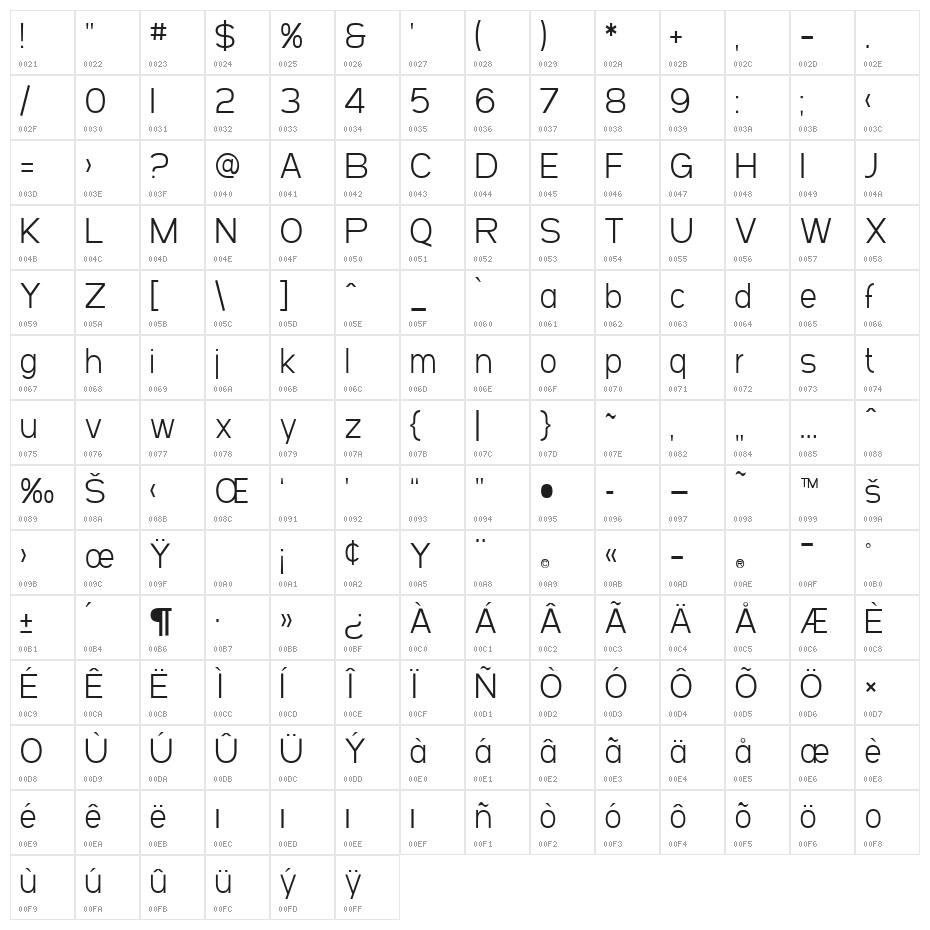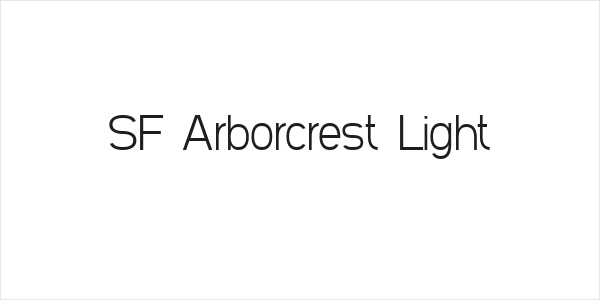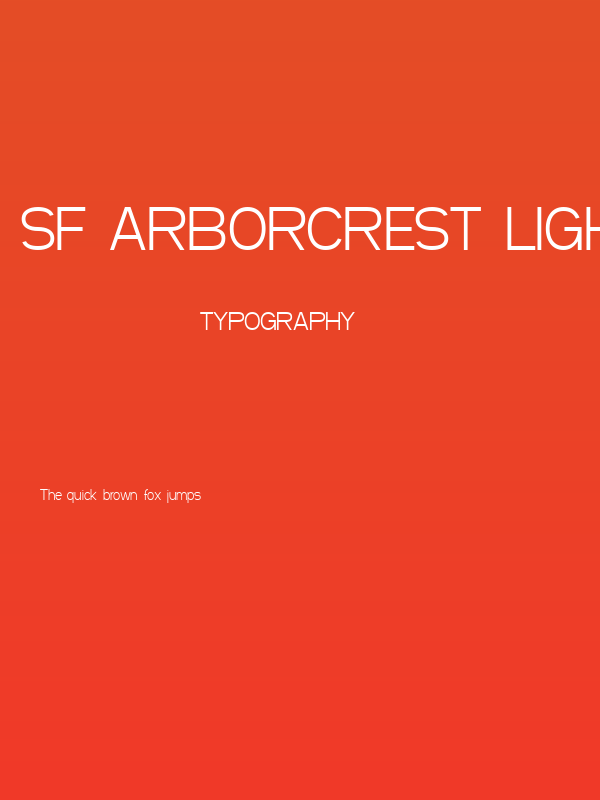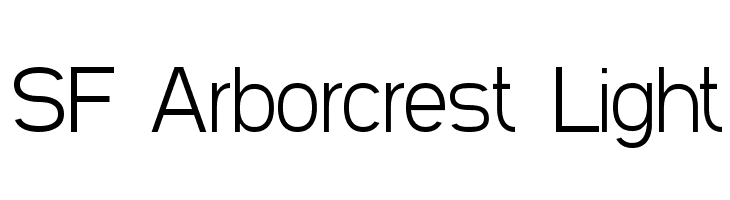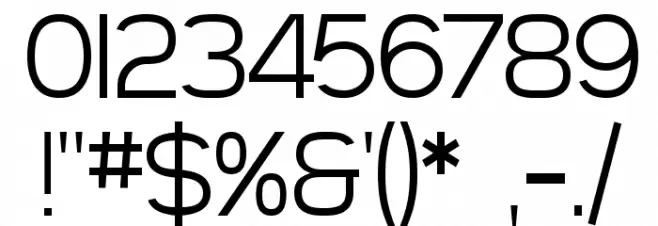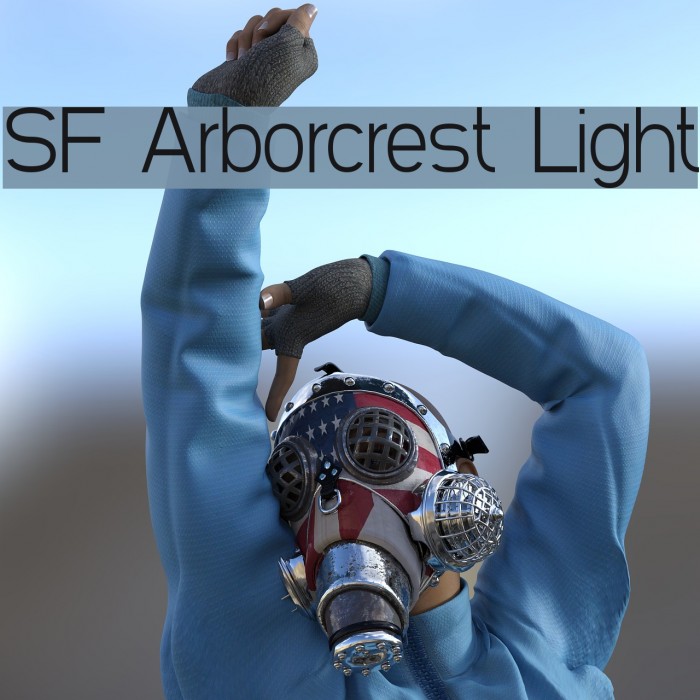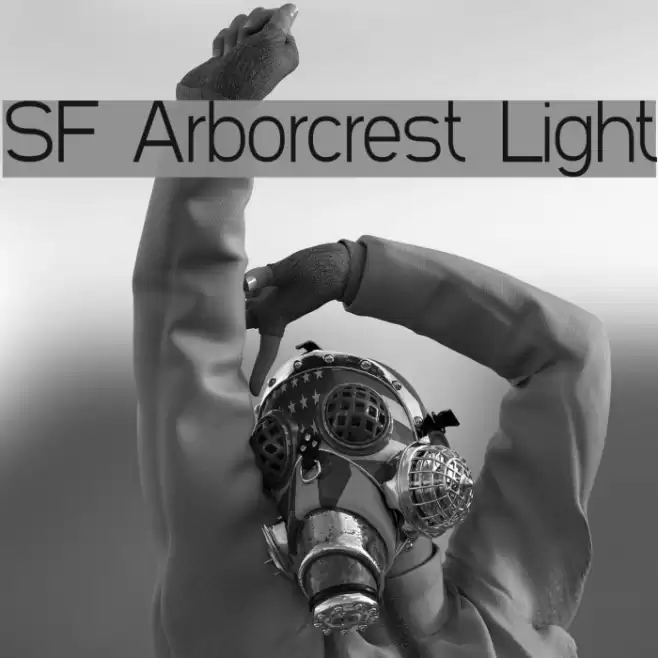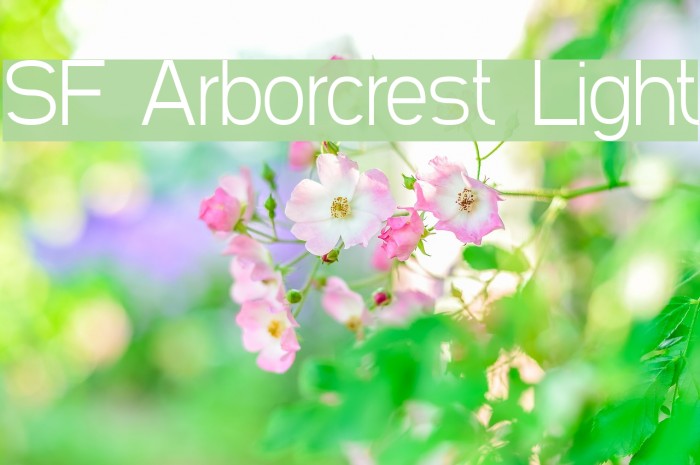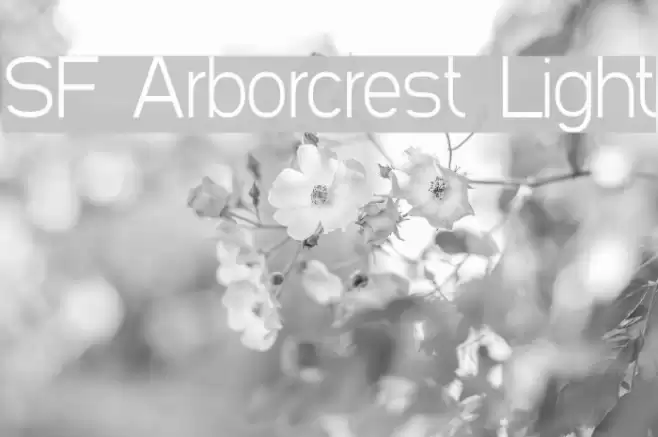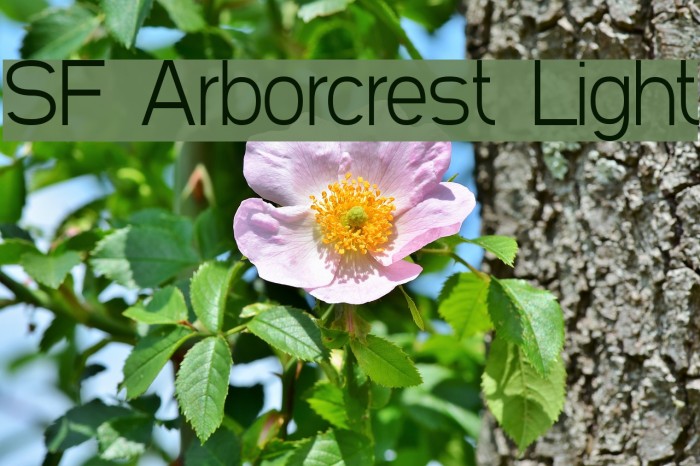
SF Arborcrest Light Font
SF Arborcrest Light Description
This font is a sleek and modern sans-serif typeface characterized by its clean lines and minimalistic design. The letters are evenly spaced with a consistent stroke width, giving it a uniform appearance. The uppercase letters are tall and commanding, while the lowercase letters maintain a balanced and approachable look. The numerals are clear and easy to read, making them suitable for various applications. Special characters are well-defined, adding versatility to the font's use. Overall, this typeface exudes a contemporary and professional feel, making it ideal for digital and print media.
| Use Case | Headlines, Body text, Logos |
| Proposed Projects | Ideal for corporate branding, website headers, digital content, and editorial design. |